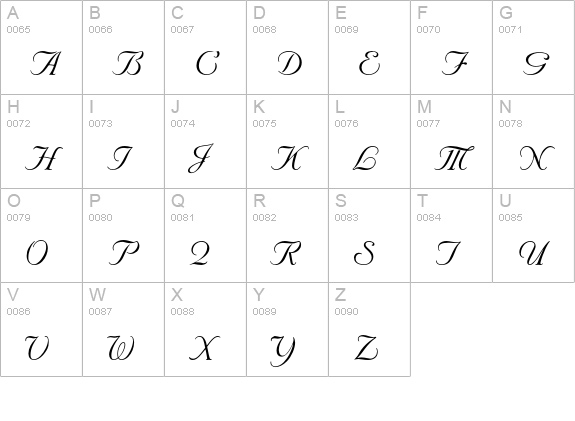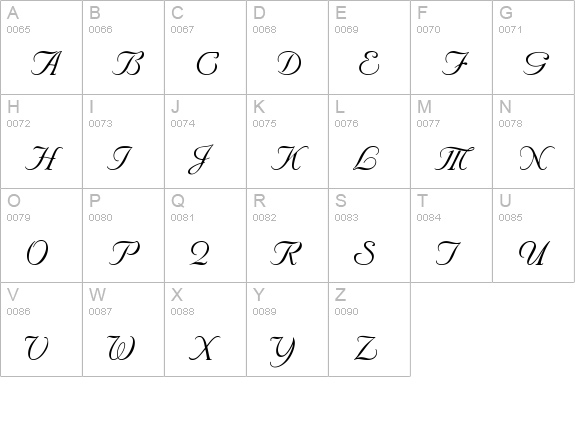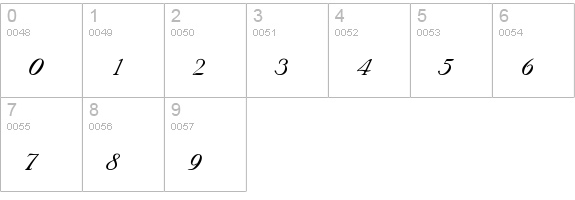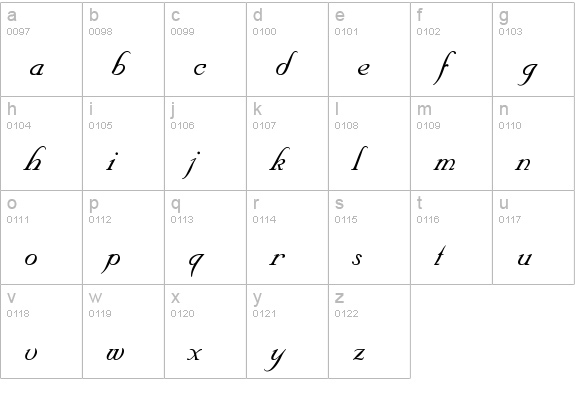
Nuncio-Normal Font Details
Nuncio-Normal is the standard, neutral variant in the Nuncio typeface family \xE2\x80\x94 well suited to general body text, paragraphs, and standard typographic work.
Nuncio-Normal font is a versatile and modern typeface that strikes the perfect balance between elegance and readability. With its clean lines and subtle curves, this font is ideal for a wide range of design projects, from branding to editorial layouts. The Nuncio-Normal font exudes a sense of sophistication and professionalism, making it a popular choice among designers and typographers alike. Best of all, Nuncio-Normal font is completely free to download at FontsMarket.com. This means you can easily incorporate this stylish font into your projects without any cost or hassle. Whether you're working on a website, poster, or logo design, Nuncio-Normal font is sure to elevate your work and give it a polished finish. Don't miss out on this fantastic opportunity to enhance your designs with the timeless elegance of Nuncio-Normal font - download it for free today!